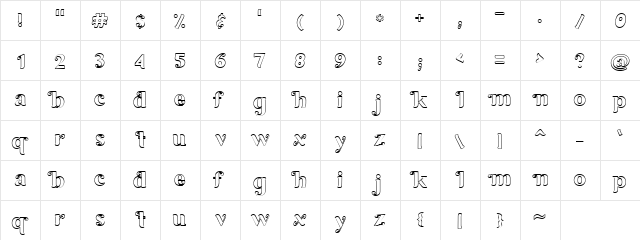
LD Stylin Regular
Design Context for LD Stylin Typeface
LD Stylin is a composed and adaptable typeface that performs quietly and consistently across a wide range of design contexts.